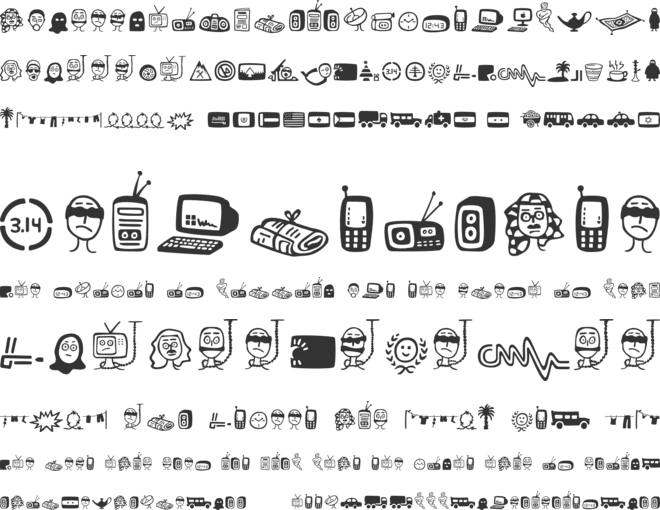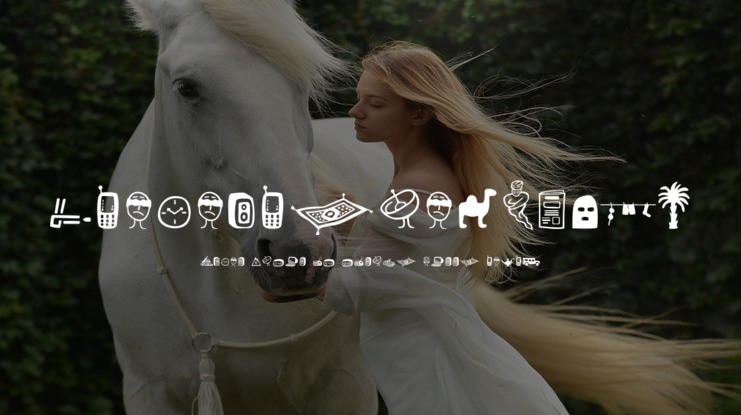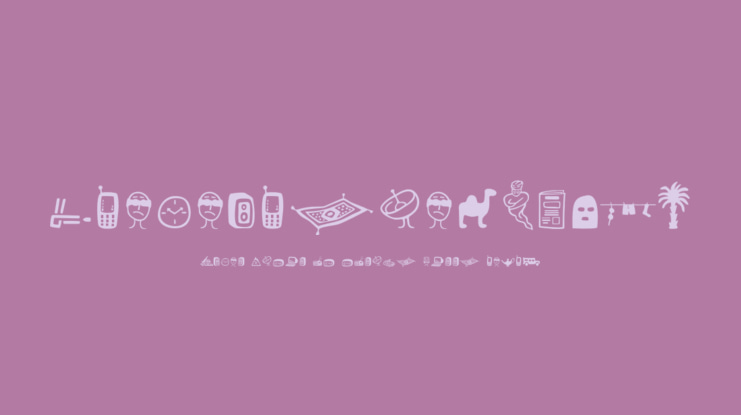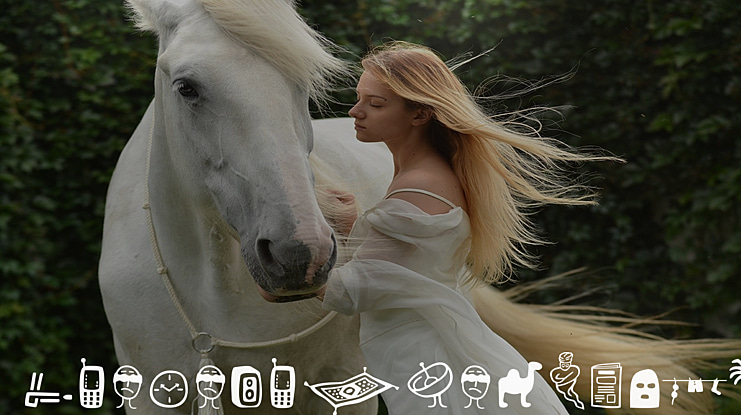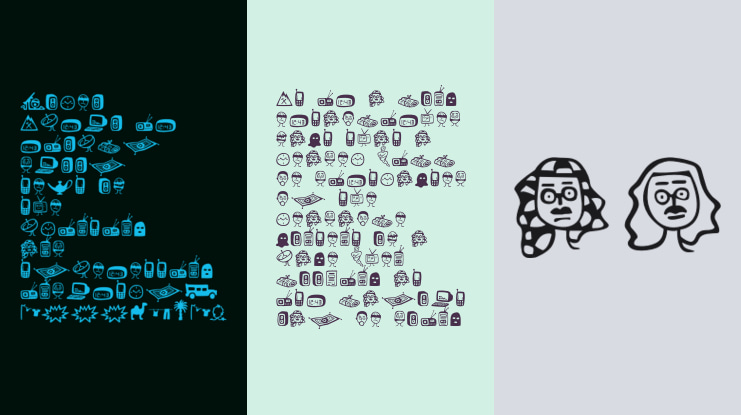
Stereotype-wkg30 Font
The StereoTypo font is a PenguinCube initiative that first began in 2005 to the backdrop of a bomb-decorated Beirut and inspired by the terror-monger, post 9/11, Arab image.
It is above all, a tool for social commentary. With a collection of symbols and icons representing stereotypes commonly associated with Middle Eastern people, places and actions, StereoTypo is a font that aims to not only identify these common stereotypes but also to give the user a tool through which they can create their own statements either through composition or intervention. For this reason it is available as a completely free for use font.